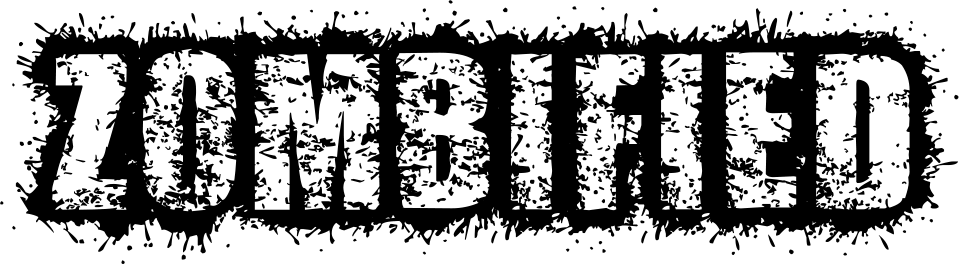
Zombified Font
If your content needs to evoke a sense of fear, you should use a horror font. Zombified is a very attractive dreadful font with grunge, bold, and dirty letters that you can use in so many different projects like scary movies, posters, and games.